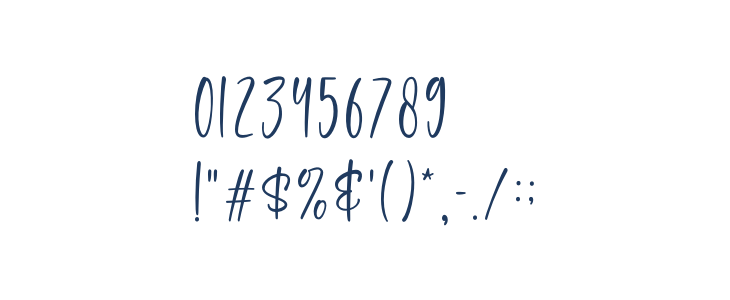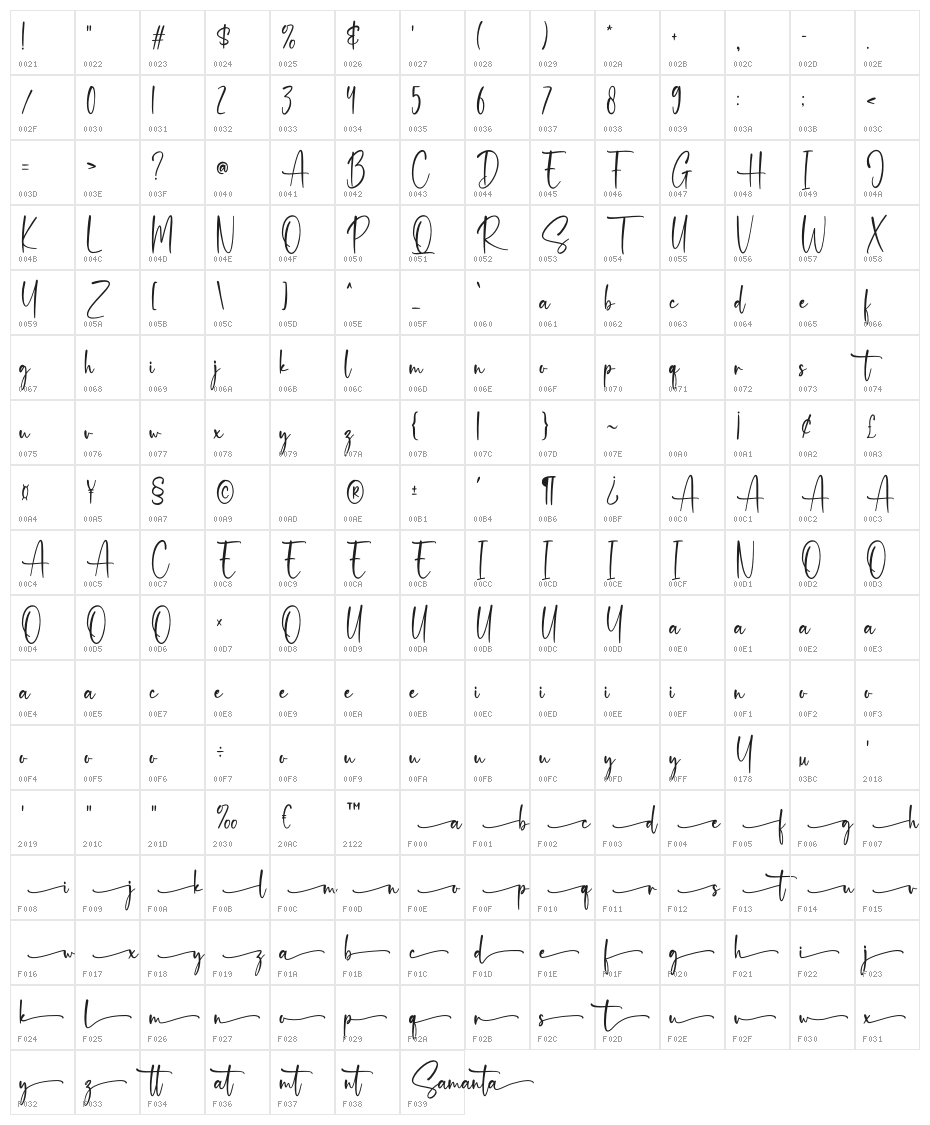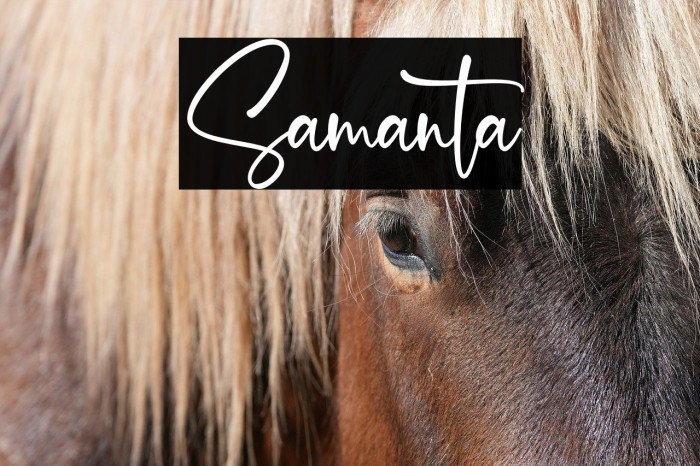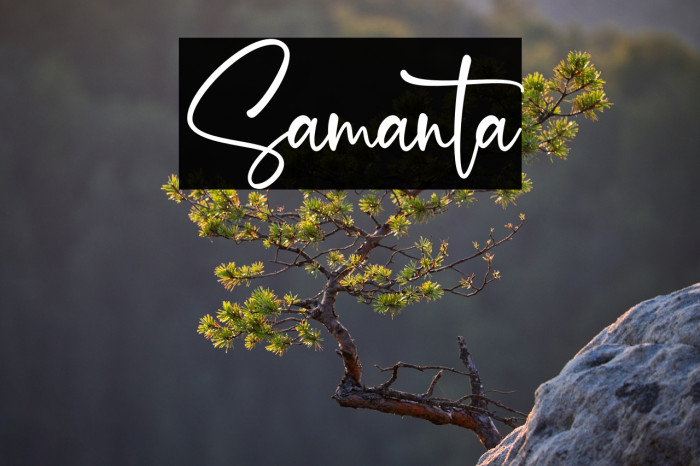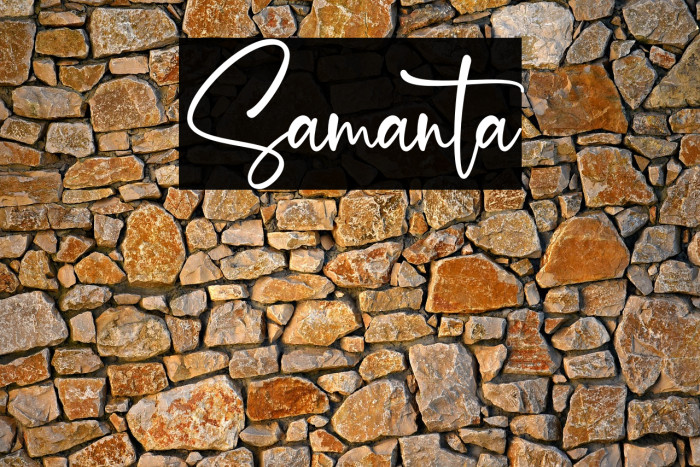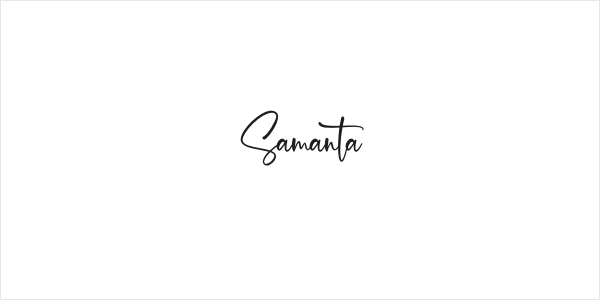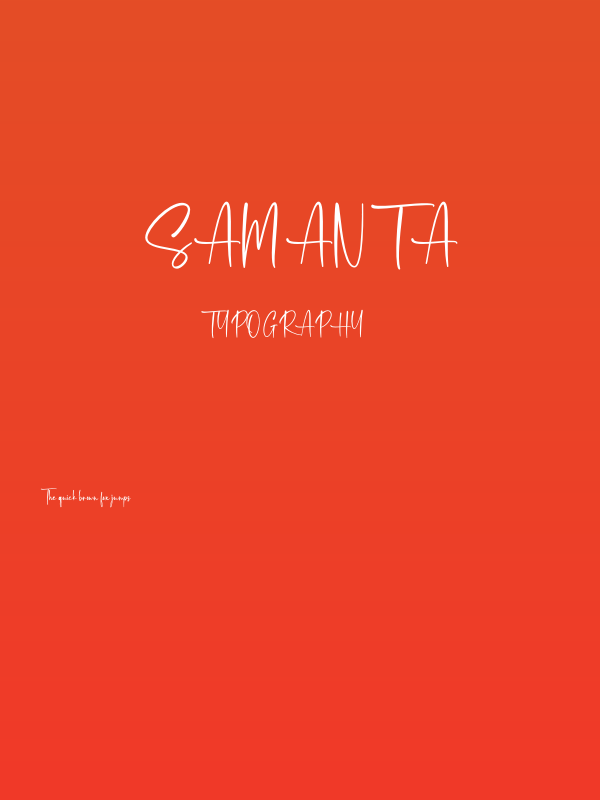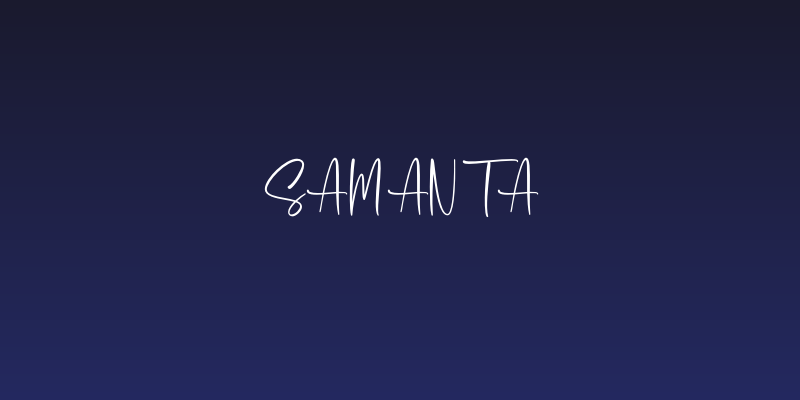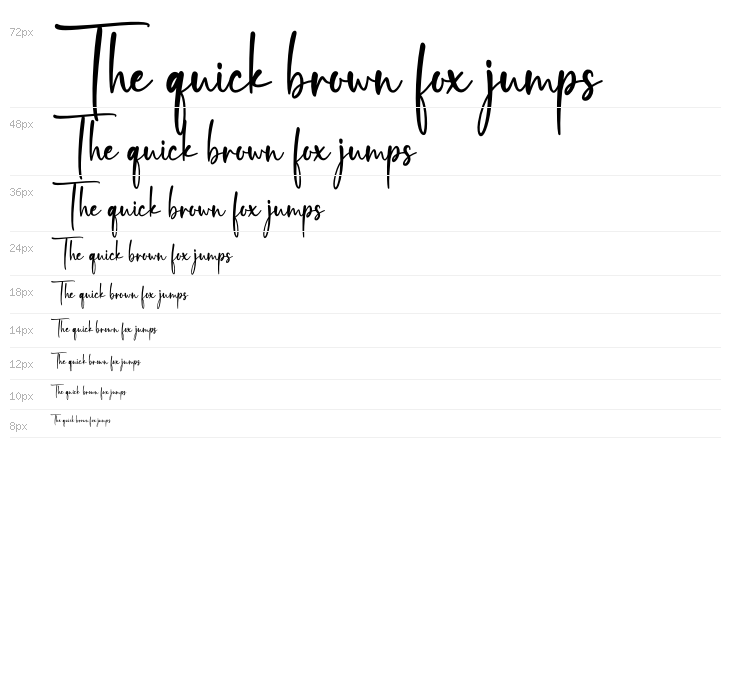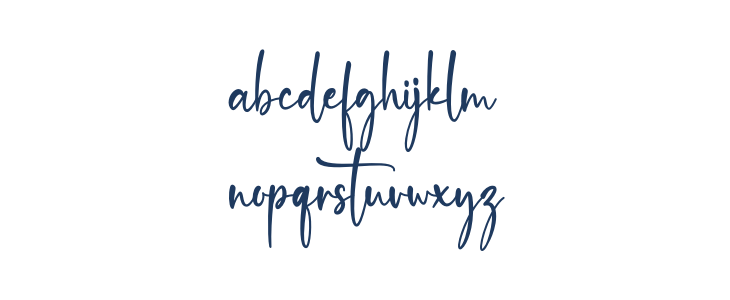
Samanta Font
Samanta Description
This font features a playful and casual handwritten style, characterized by its flowing and slightly irregular letterforms. The uppercase letters are tall and slender, with a whimsical flair that adds a touch of personality. The lowercase letters maintain a consistent flow, with some characters featuring unique loops and curves that enhance the font's charm. The numerals are bold and clear, ensuring readability while maintaining the overall playful aesthetic. Special characters are well-integrated, matching the font's lively and informal style. This font is perfect for projects that require a personal and approachable touch.